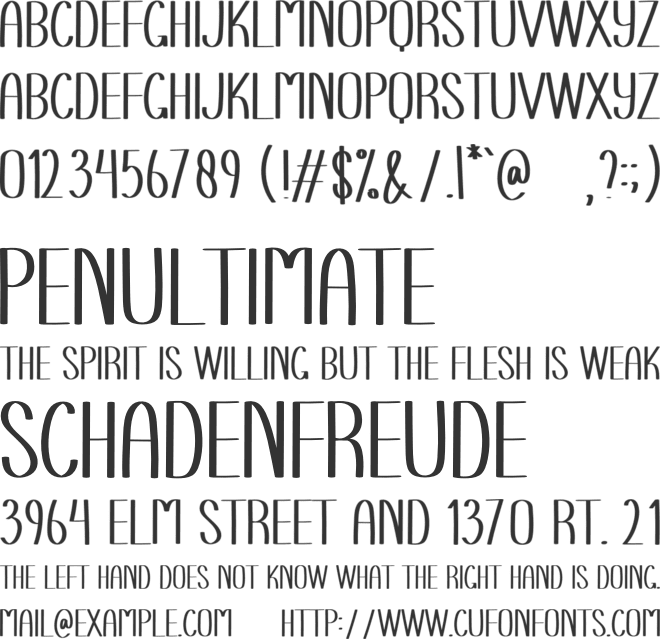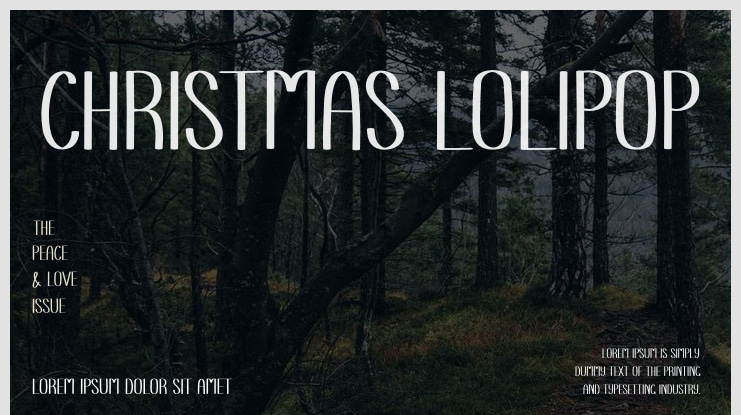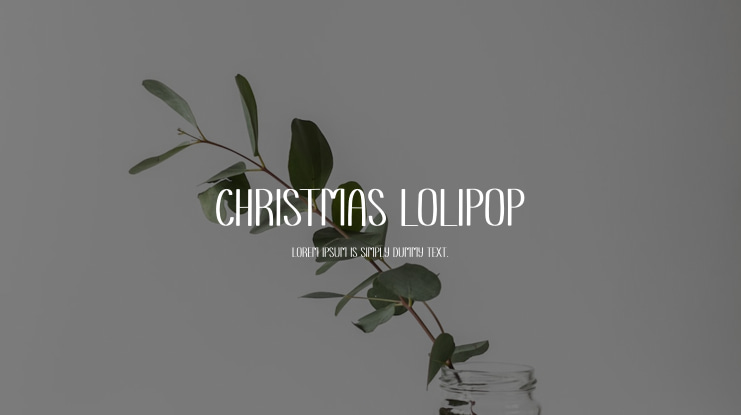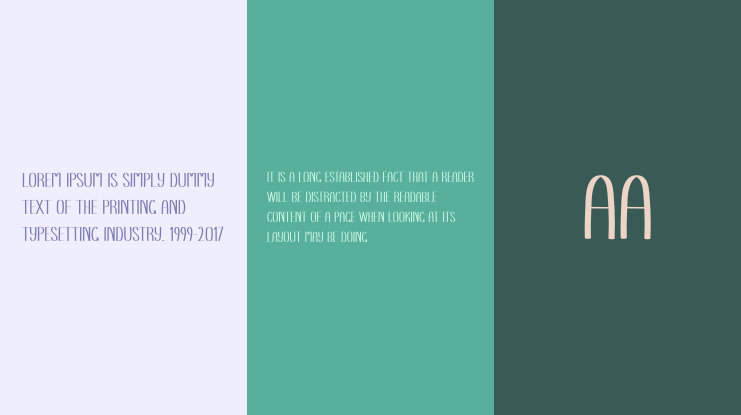
Christmas Lolipop Font
Our latest stylish fonts are perfect for wall displays, wedding invitations, social media logos, advertisements, product packaging, labels, photography, watermarks, stationery, invitations, and any projects that demand elegant handwriting.
Christmas Lolipop font preview